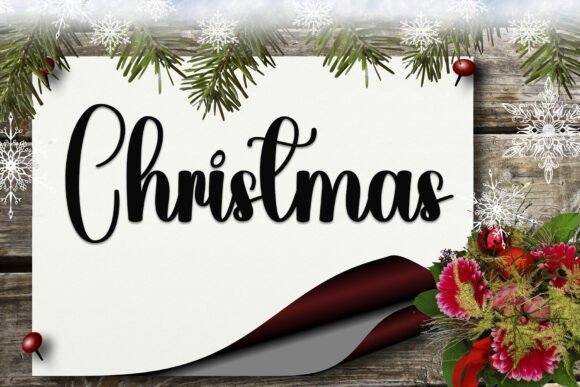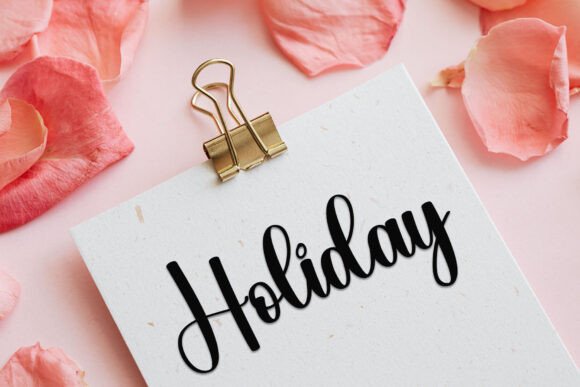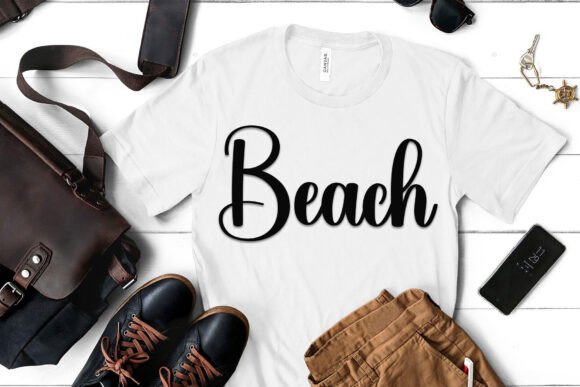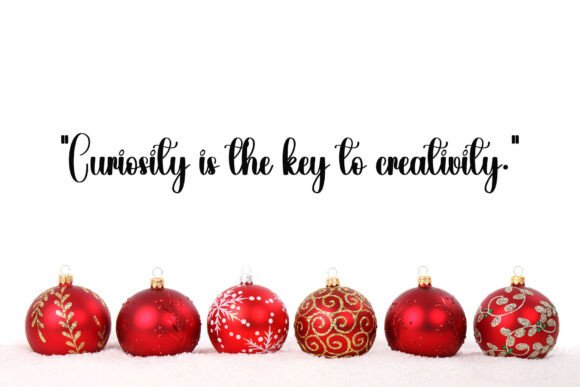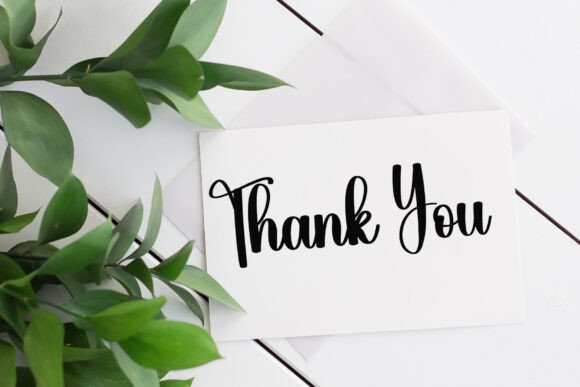
Introduction to Digital Ornament Font
Digital Ornament is a festive and happy typeface that captures the spirit of the holiday season.
With its decorative elements and unique flair, it adds a touch of charm to your designs Perfect for greeting cards, gift labels, and holiday-themed projects, this font brings a cheerful and nostalgic atmosphere to your words.
Key Features of Digital Ornament Font
Why Choose Digital Ornament Font?
Digital Ornament Font offers exceptional quality and versatility, making it a valuable addition to your design toolkit. Whether you’re creating for personal projects or commercial use, Digital Ornament Font delivers professional results.